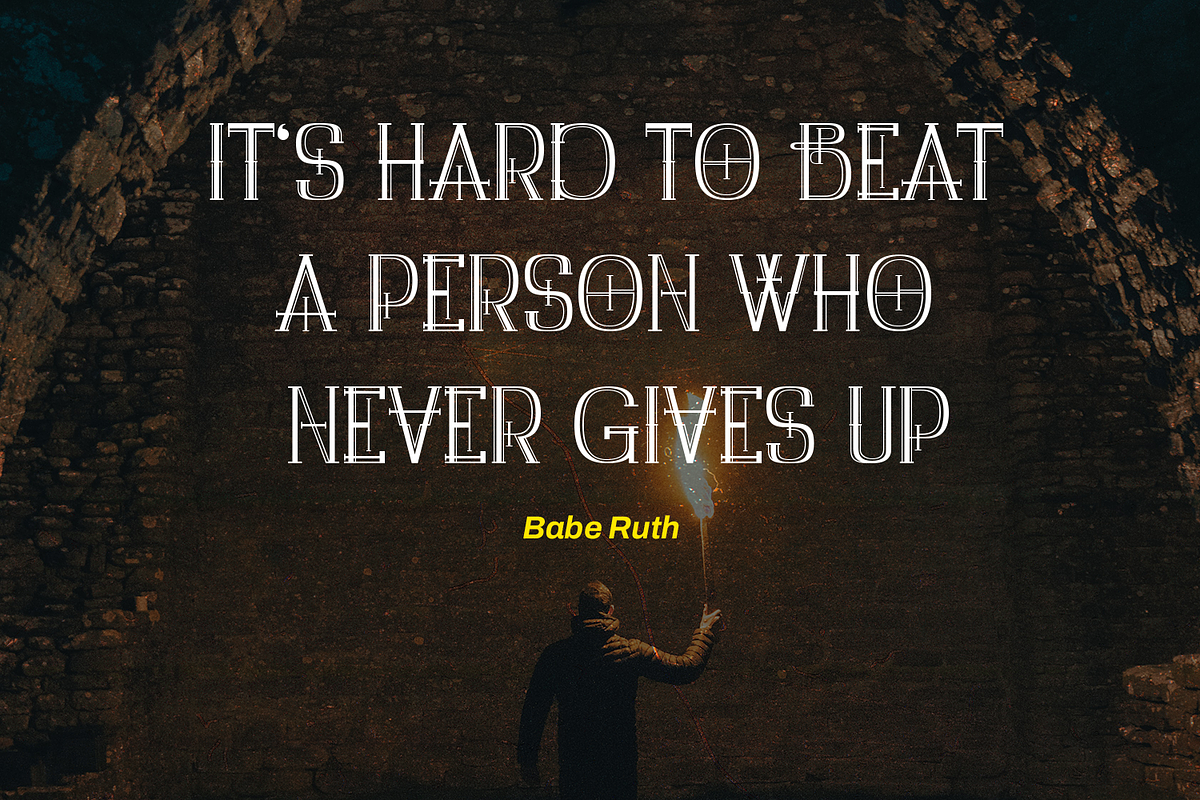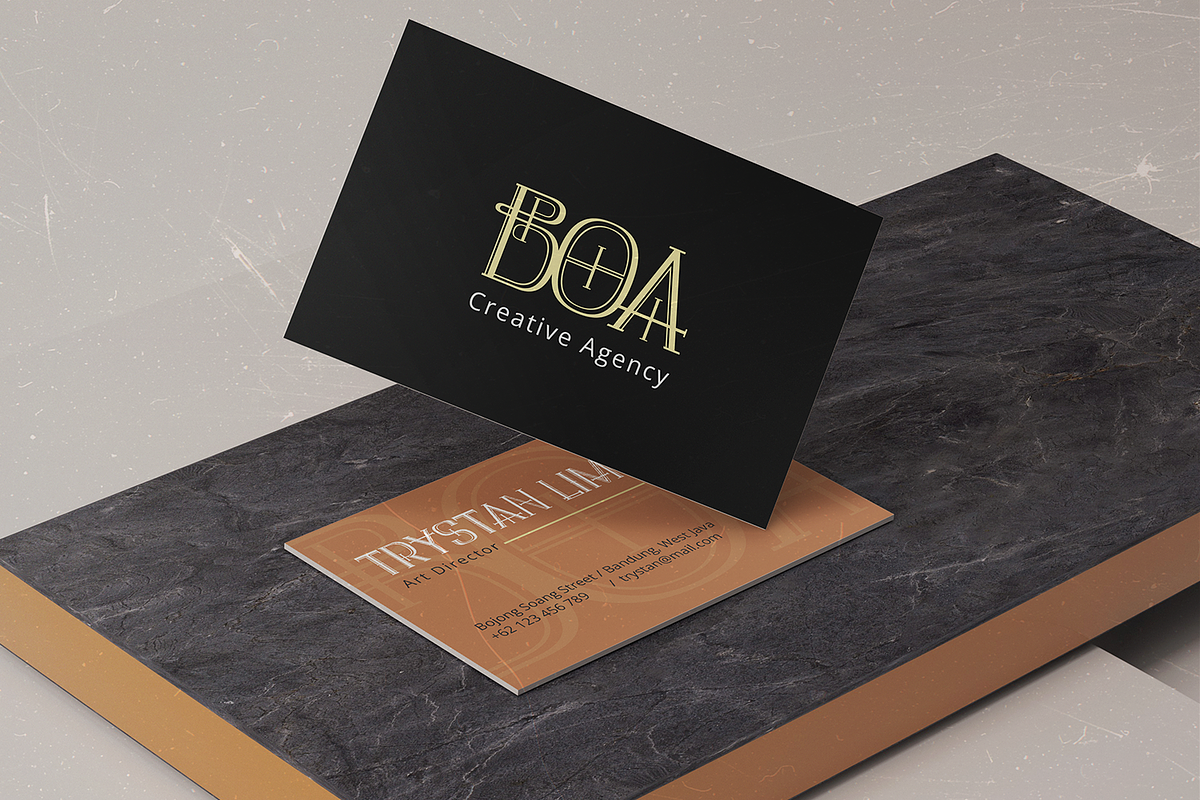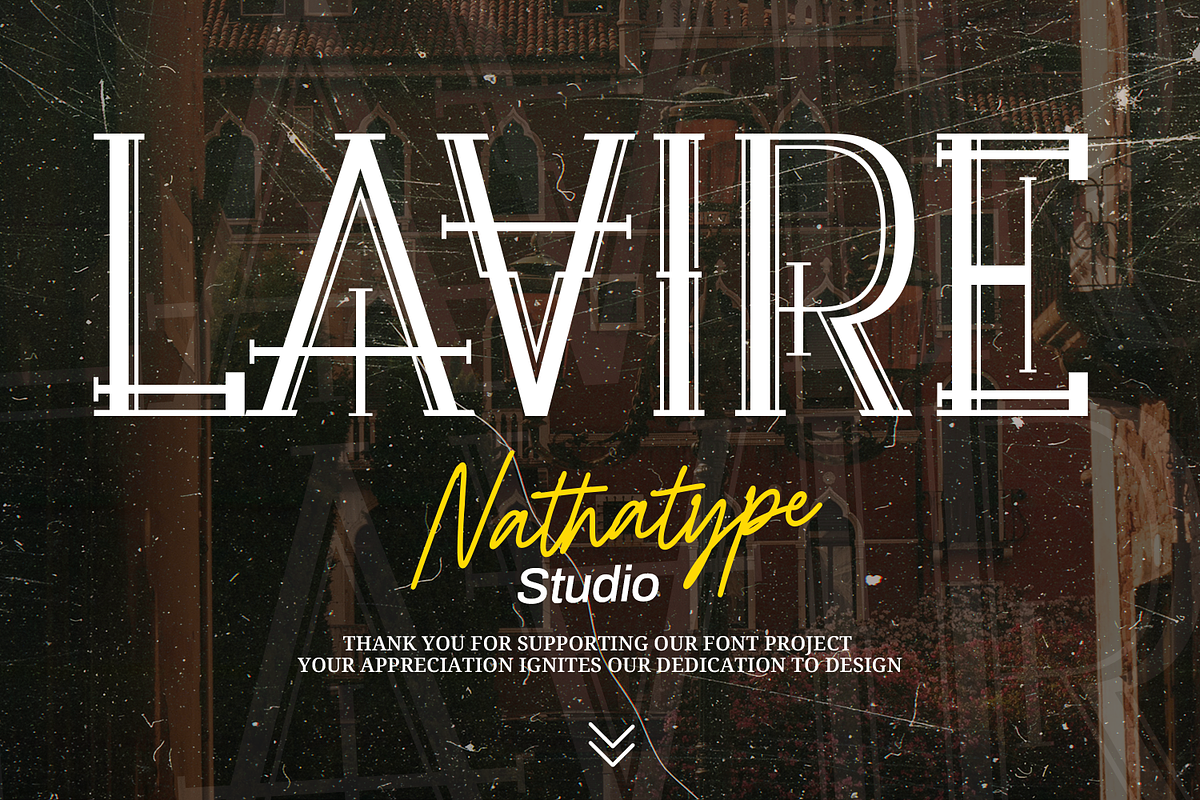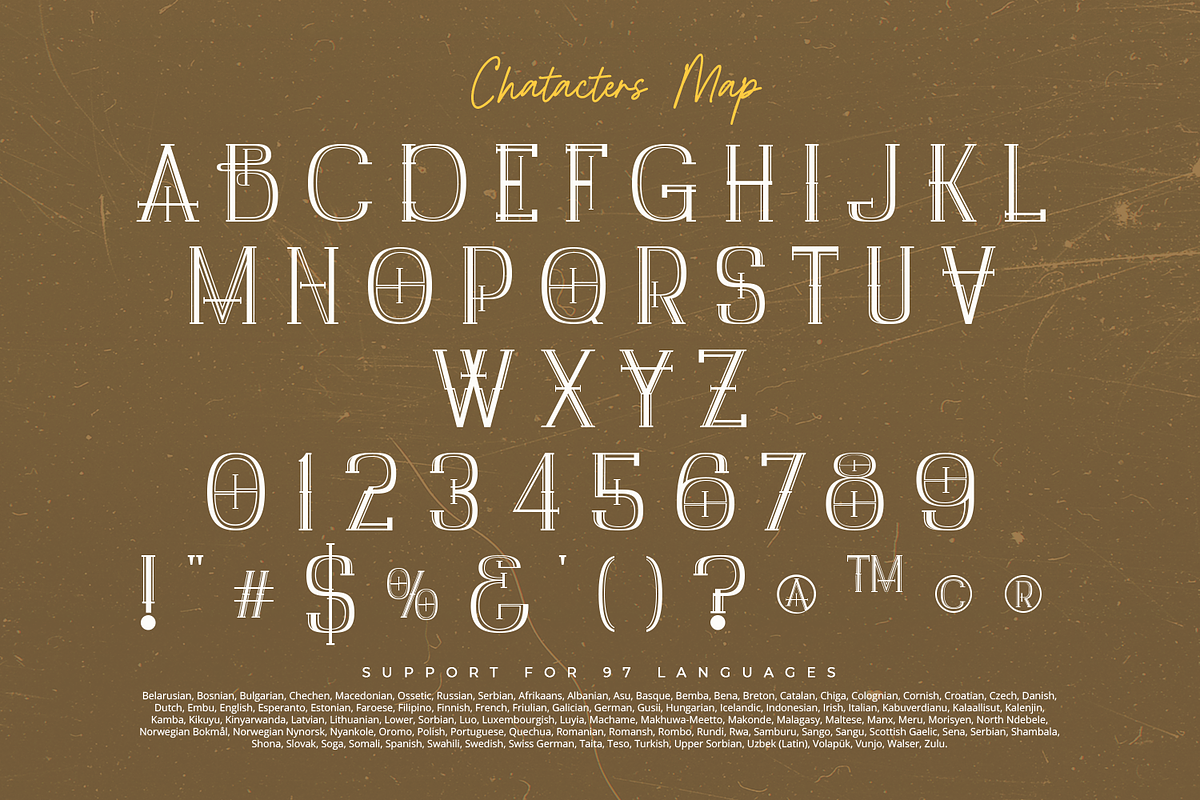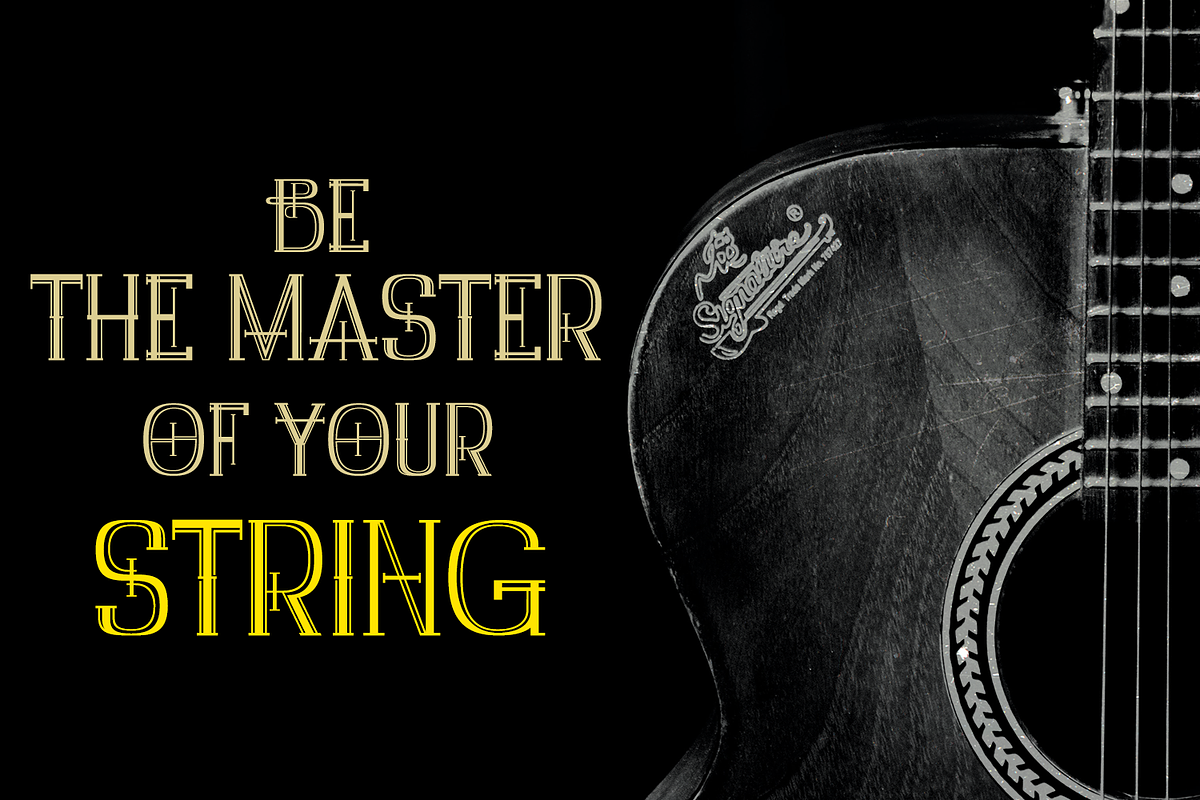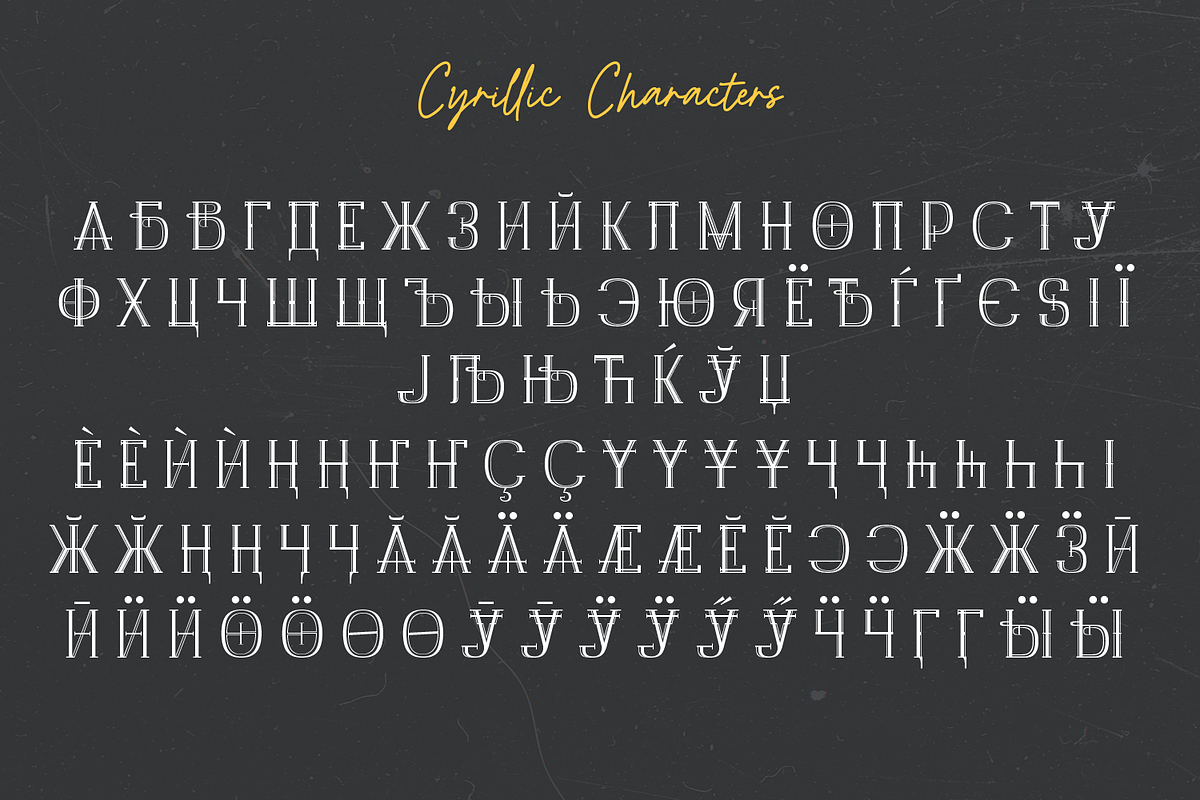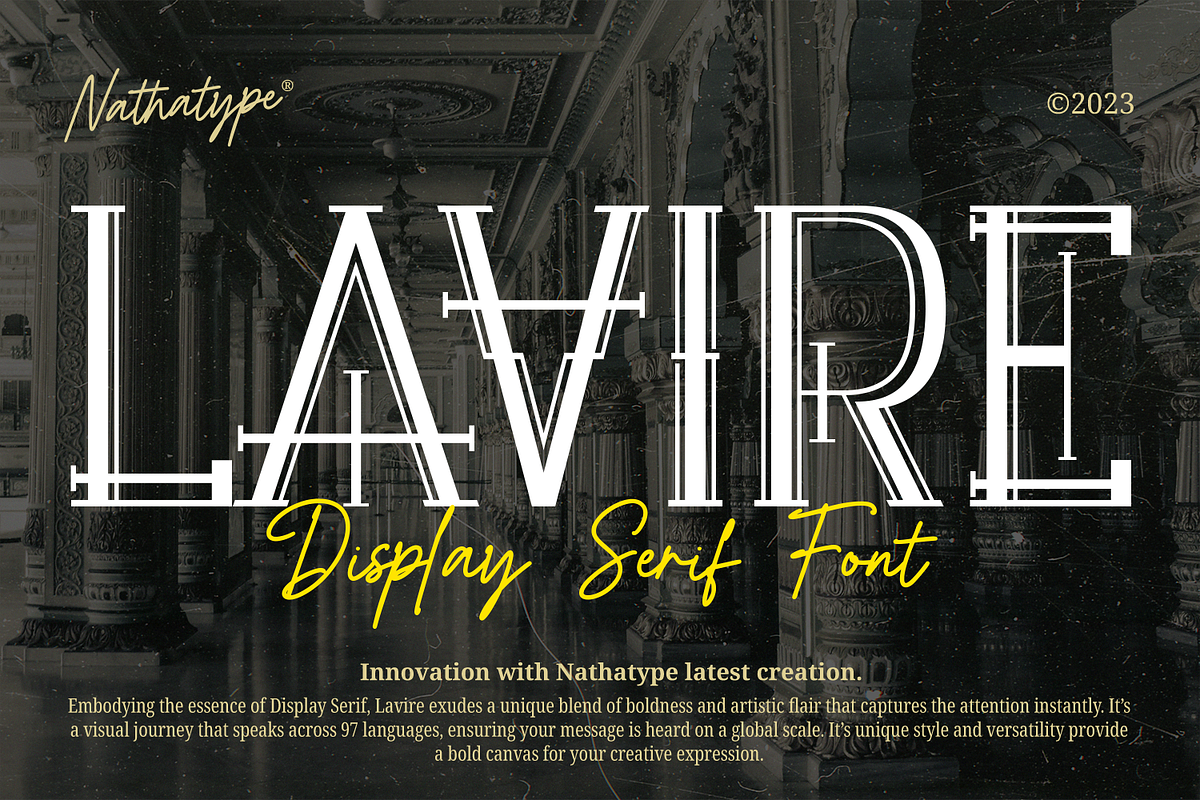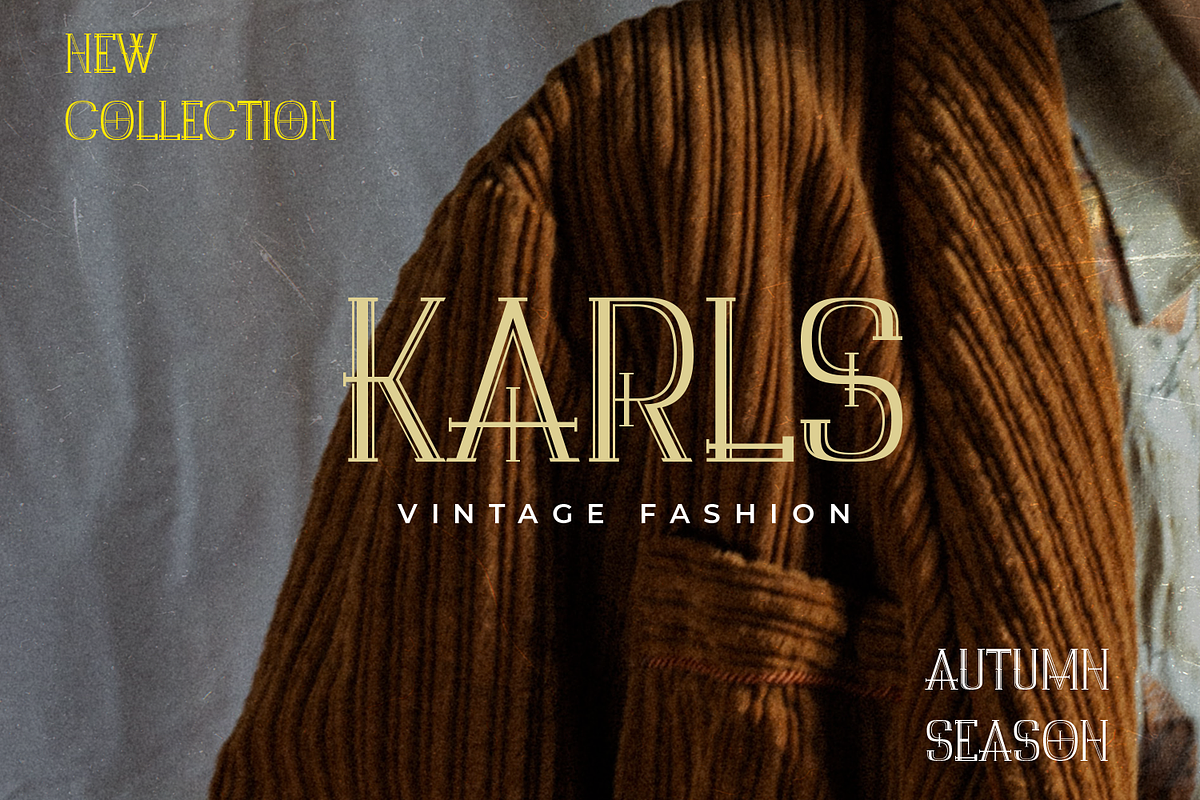
Lavire
Elevate your design projects with the distinctive and captivating Lavire. Lavire is an uppercase display serif font that is effortlessly made in a truly unique typographic masterpiece. Each uppercase letter in Lavire is a work of art in itself. The serifs, which are typically known for their traditional elegance, take on a modern and imaginative twist with Lavire's addition of artistic lines and flairs.
The artistic lines and flairs in this font are carefully crafted to enhance the overall composition of each letter. They bring a sense of motion and dynamism to the font, making it particularly well-suited for projects that seek to convey a sense of movement or elegance. In addition, enjoy the features here.
Lavire fits in headlines, logos, posters, flyers, branding materials, print media, editorial layouts, and many more designs. Find out more ways to use this font by taking a look at the font preview.